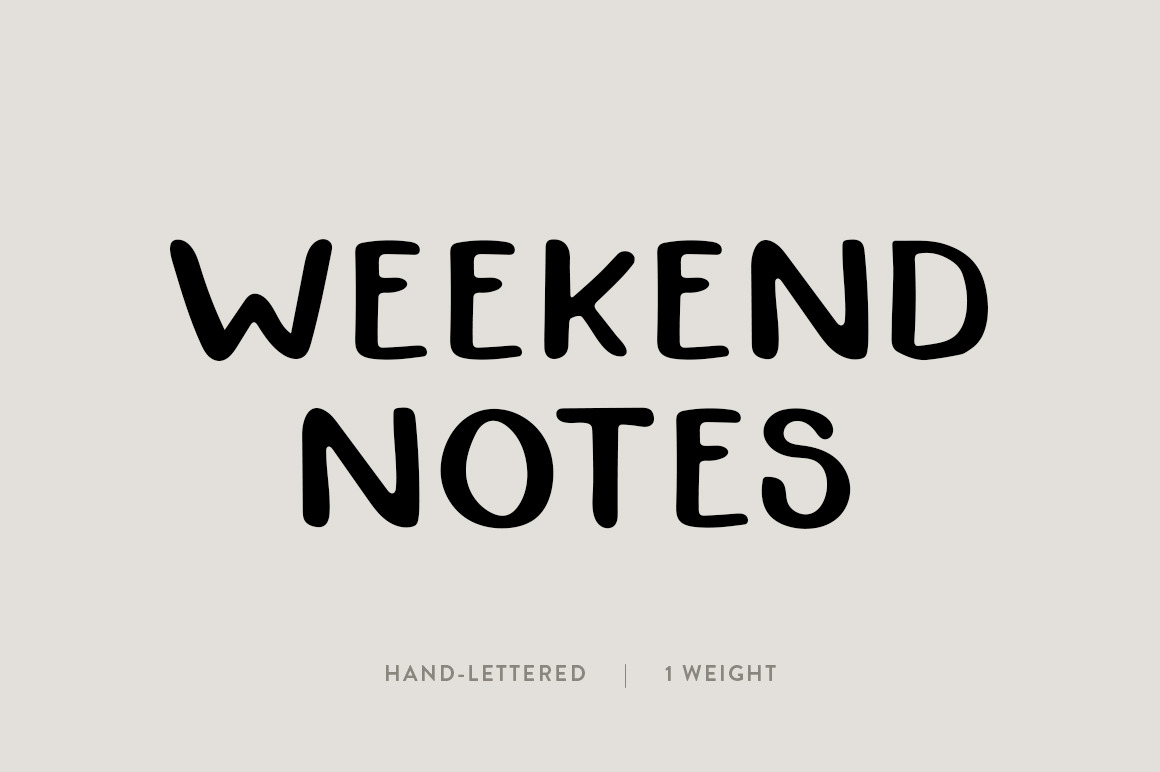
Weekend Notes: A Hand-Lettered Font
The Weekend Notes Font
Weekend Notes was created around the idea of weekend lists. Whether it's things to do around the home or an ongoing bucket list of places to see, this font is about those quick ideas worth jotting down. With its organic curves and quirkiness, this font works best as a header font or for smaller bodies of text. It is perfect for projects that need a naturally bold font like blog posts, social graphics, event posters, or even a logo.
This font was created by hand and then digitized. Enjoy!